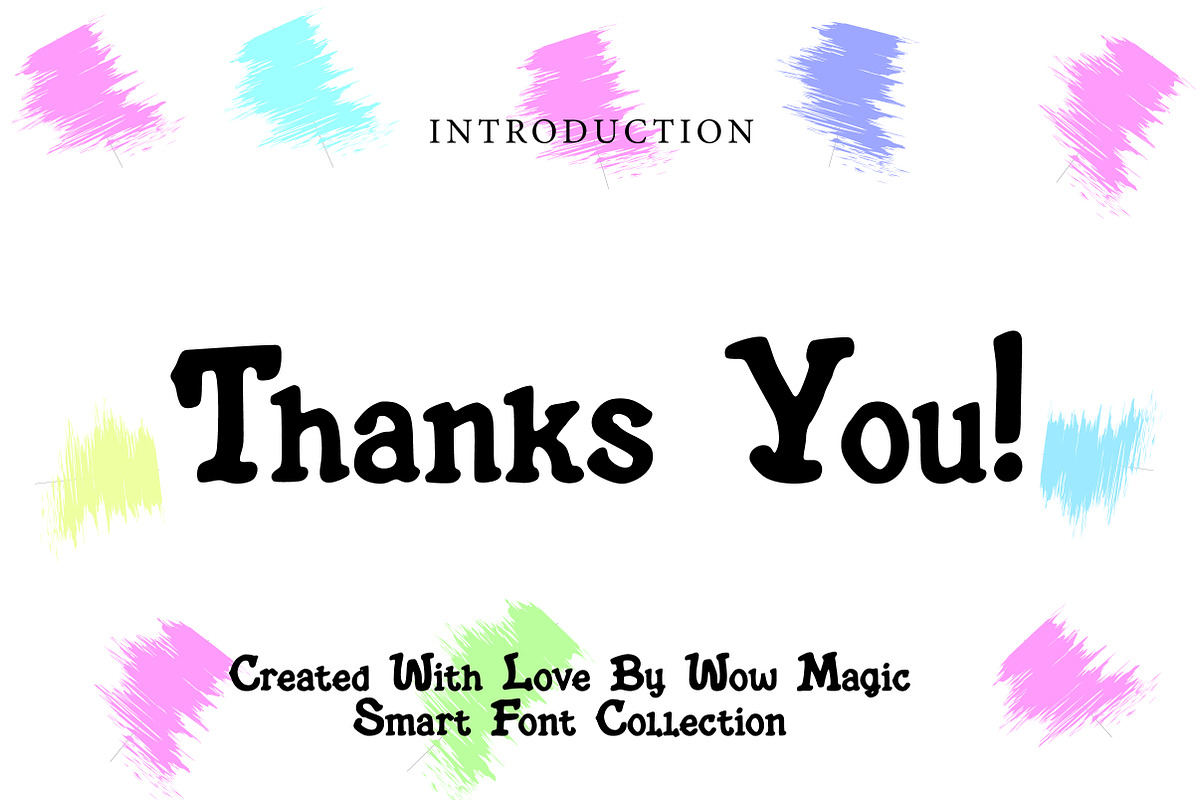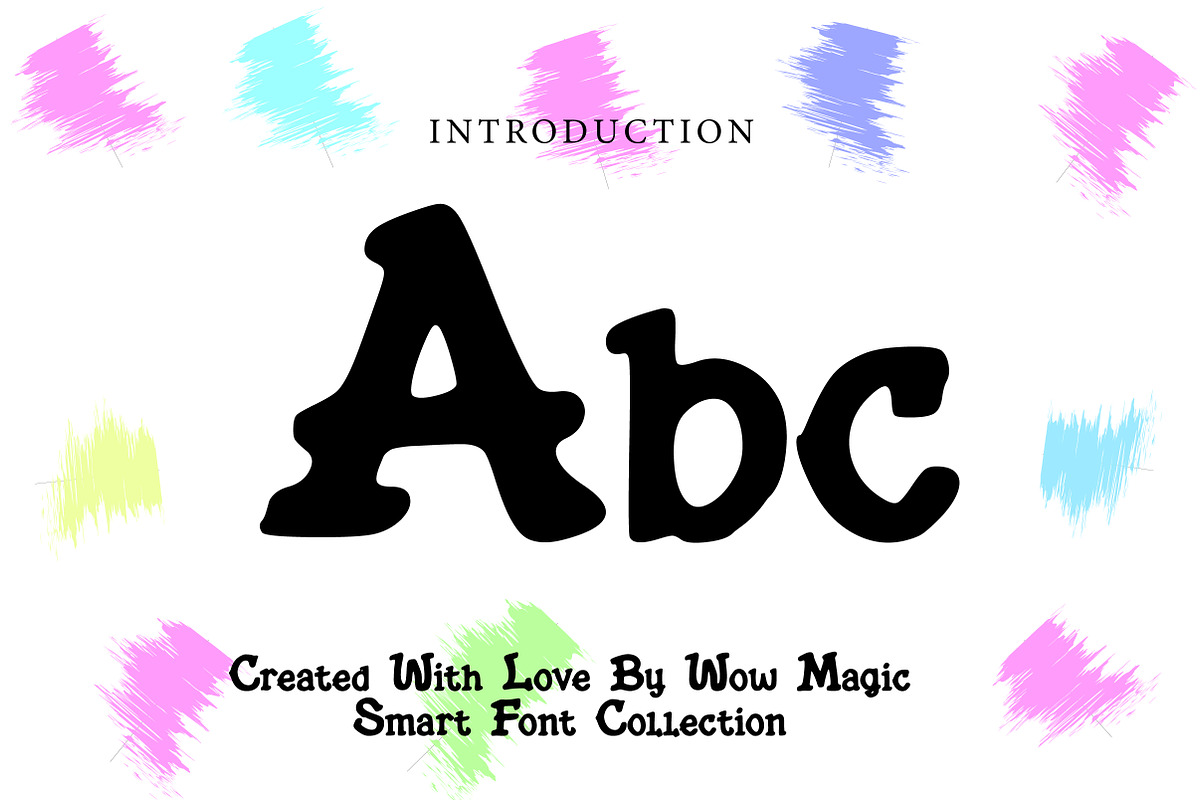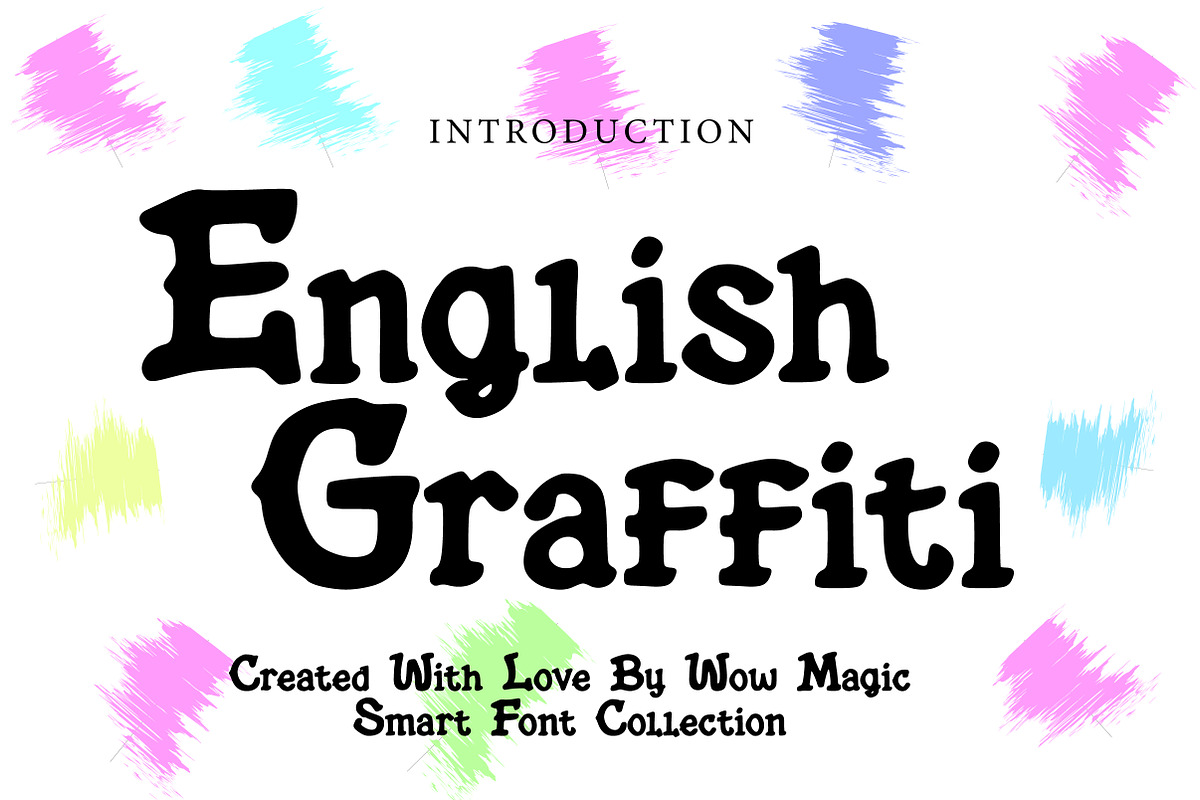
English Graffiti
English Graffiti is a bold and expressive display font inspired by classic street art and urban graffiti culture. With its hand-drawn brush strokes, slightly rough edges, and playful character shapes, this font captures the raw energy of wall tags, street murals, and underground art scenes.
The organic flow and irregular detailing give it an authentic handmade feel, making it perfect for creative projects that need attitude and personality. Whether you're designing posters, streetwear branding, music covers, social media graphics, or bold headlines, English Graffiti delivers a strong urban vibe.
This font blends vintage graffiti influence with modern usability, making it versatile for both print and digital designs. Add a rebellious, artistic, and energetic touch to your typography with English Graffiti.